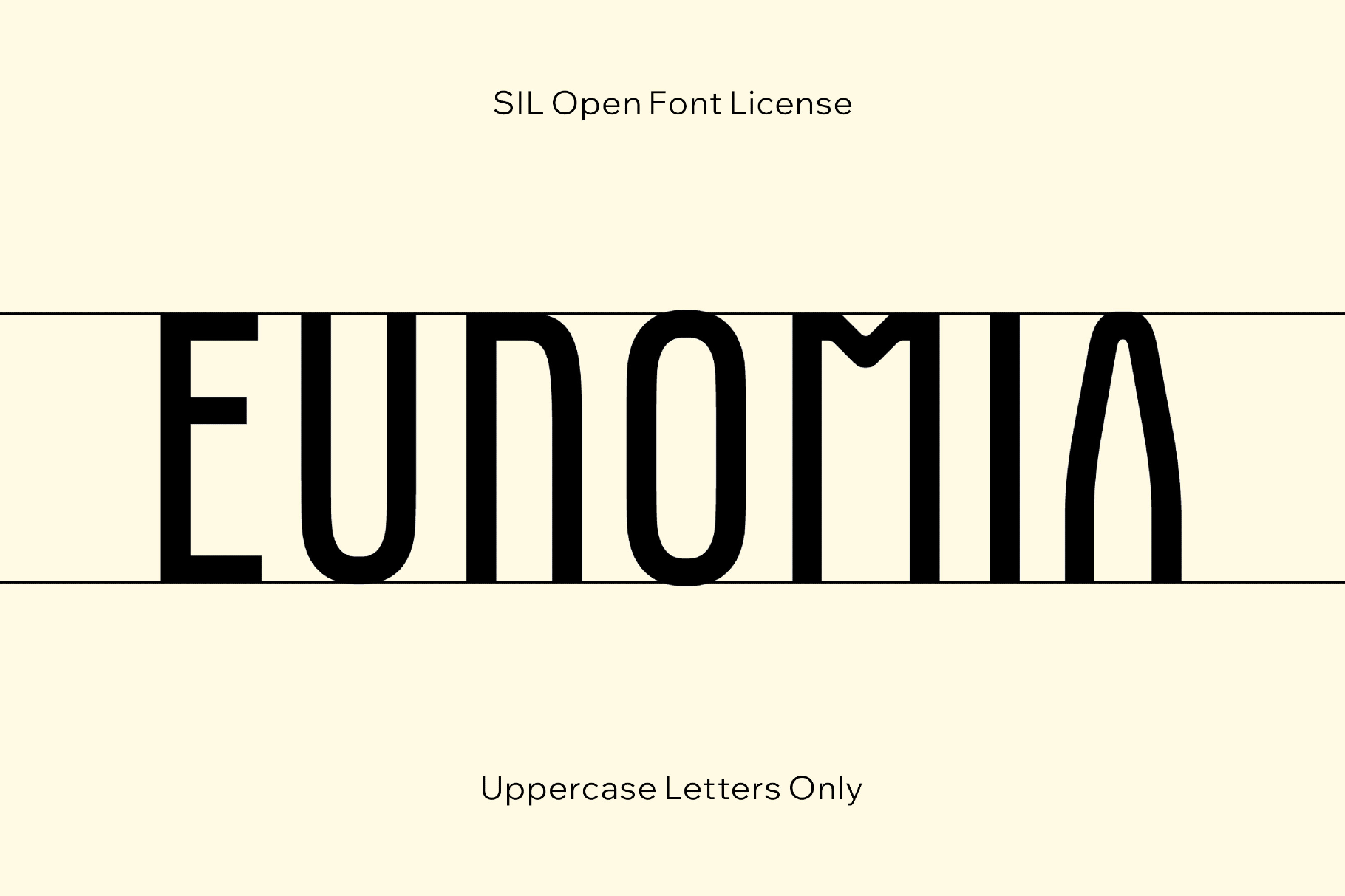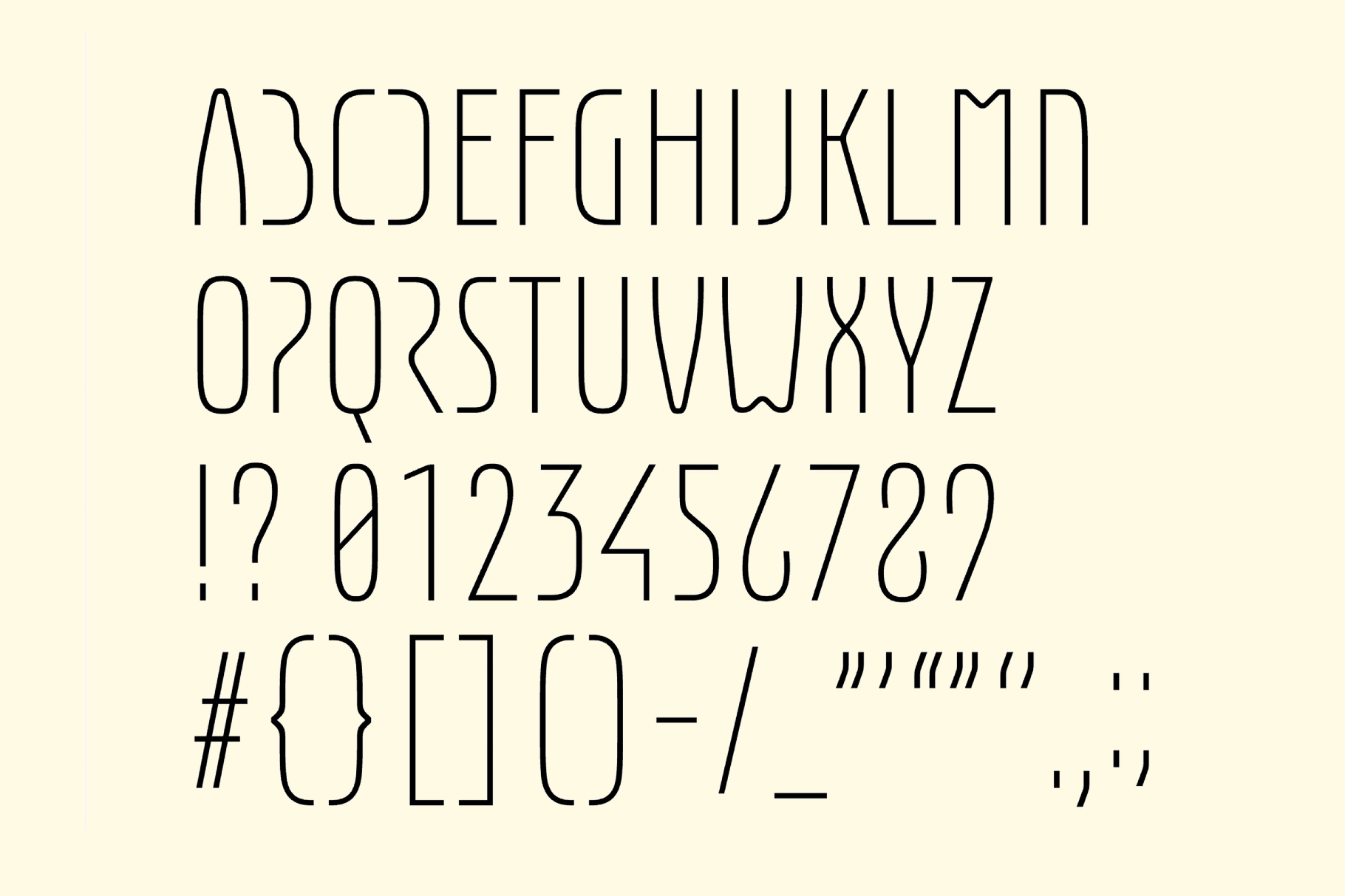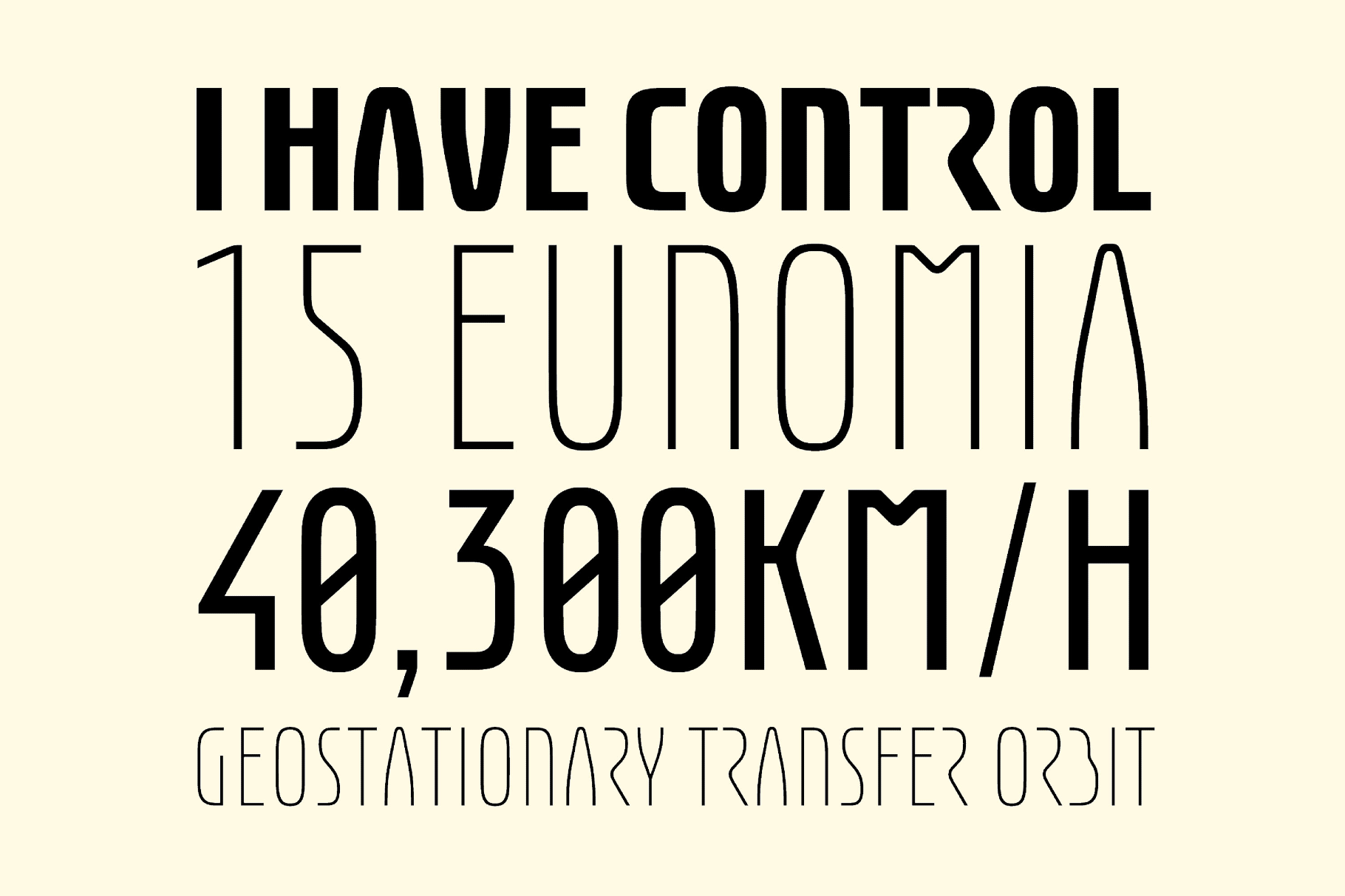
Eunomia Space Font Family
This cosmic font has the clean futuristic presence grounded in old space-program insignia and Eurostile-era display type. Its geometry is crisp and architectural, with a steady rhythm that keeps the lettering balanced and composed across light and heavy weights.
Eunomia sits naturally in poster headlines, tech identities, editorial covers, album sleeves, logos, brand systems, exhibition graphics, interface concepts, and packaging that calls for a clear futuristic register.
- two styles: Regular, Light, and Bold;
- uppercase letters A–Z;
- numbers, punctuation, and symbols.